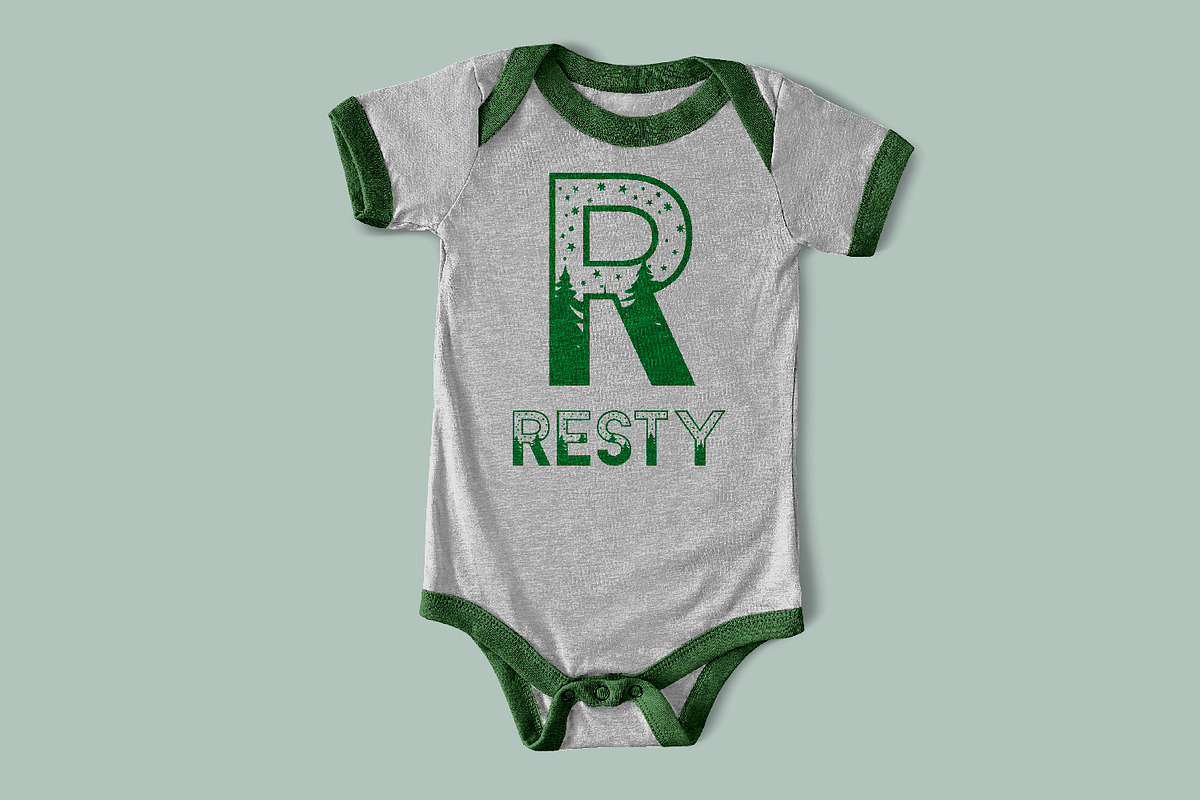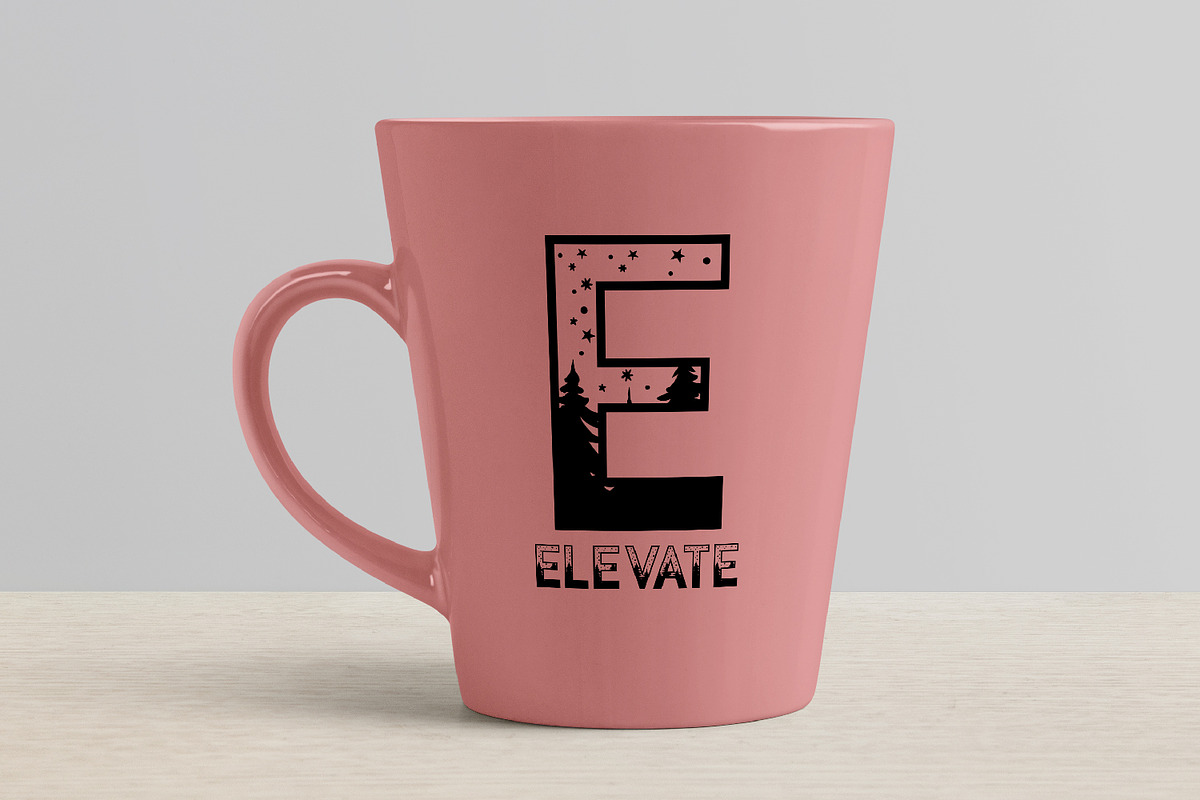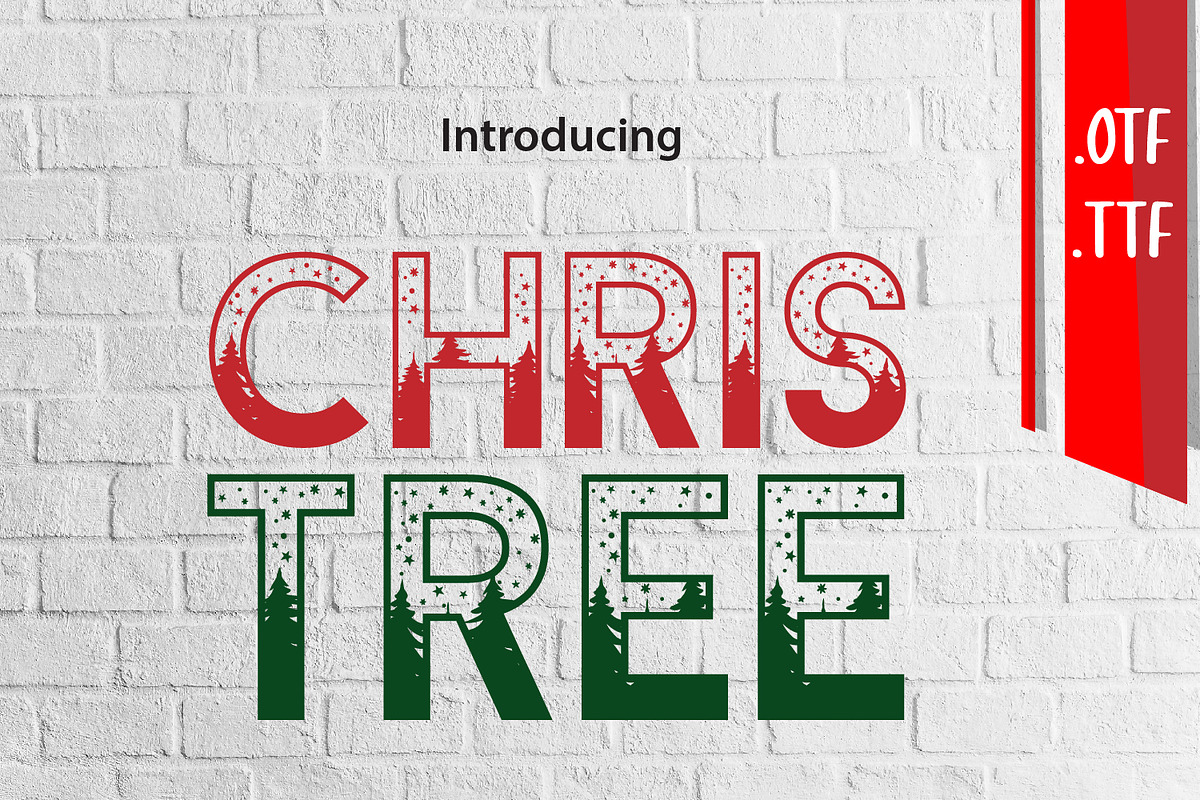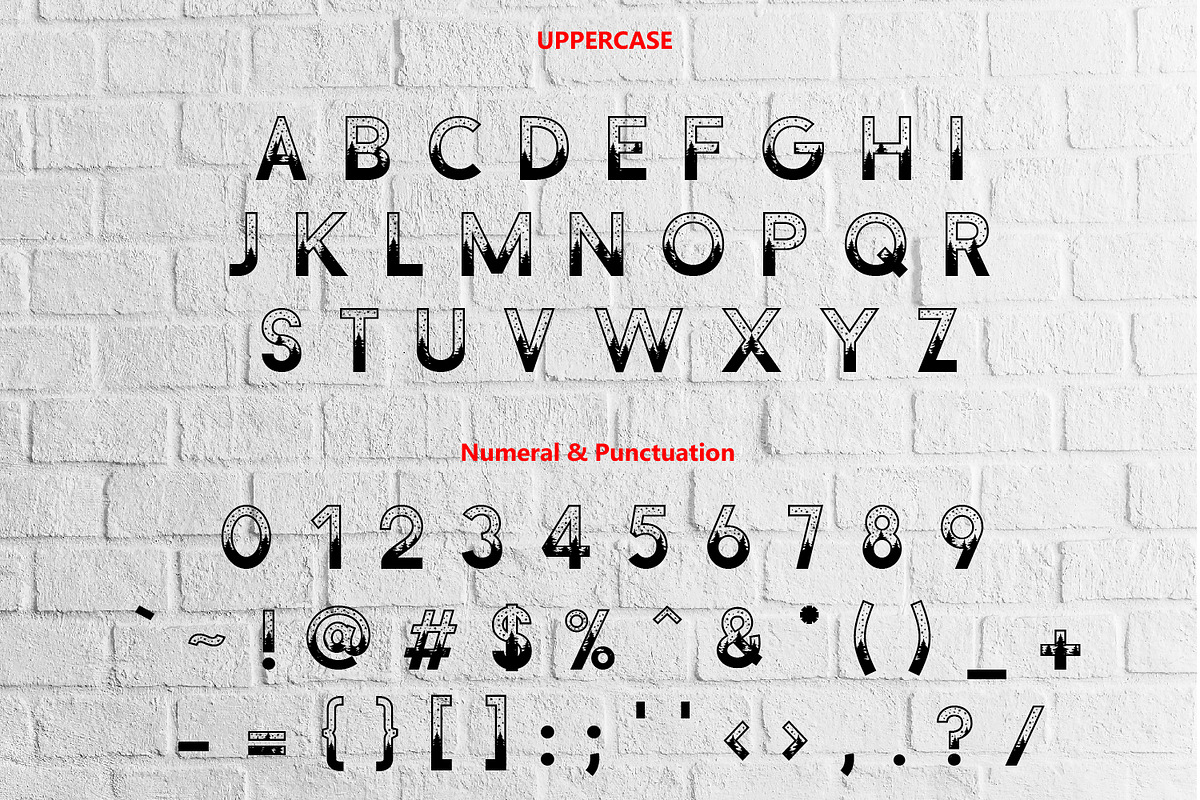
CHRISTREE
CHRISTREE is a fresh typeface. Feel the decorative forest characters strengthen your design, and add an unique touch. It’s perfect for name cards, posters, logos magazines, covers, banners, and large-scale artwork.